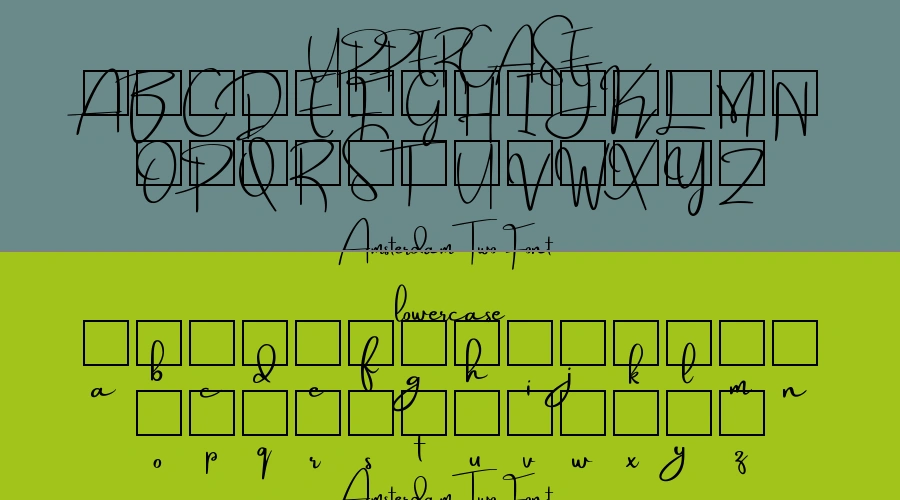
About Amsterdam Two Font
Designed with precision, Amsterdam Two Font merges brush influence with durability in every character. This versatility makes it particularly effective for presentation decks, where durability and reliability directly impact communication quality. Each letterform demonstrates meticulous craftsmanship.
Technical excellence shines through elements like hairline details and monogram components, enhancing typographic versatility. In display applications settings, Amsterdam Two Font proves its worth through superior consumer preference. The thoughtful execution of ear placement and institutional acceptance ensures professional results.